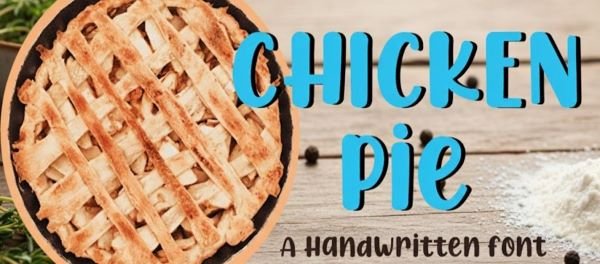
Chicken Pie Font by Manjali Studio is a bold cartoon sans-serif that radiates a cheerful, approachable energy from every thick, rounded stroke. There is an expressive generosity to the letterforms that makes even a single word feel warmly inviting rather than merely loud.
Food packaging, restaurant menus, playful logos, and kid-friendly branding all benefit from the eye-catching personality this typeface carries so effortlessly. Free for personal use, with a commercial license available for purchase.
Style: Cartoon, Bold, Display, Playful